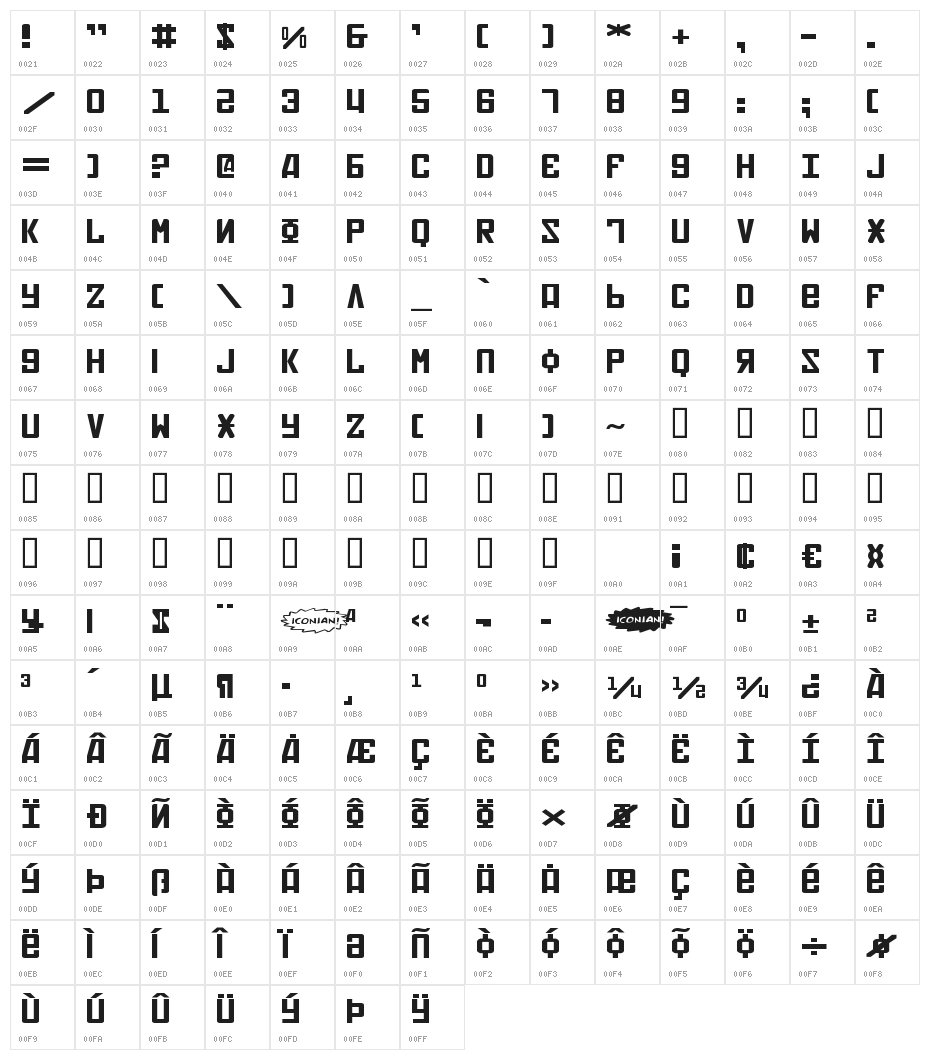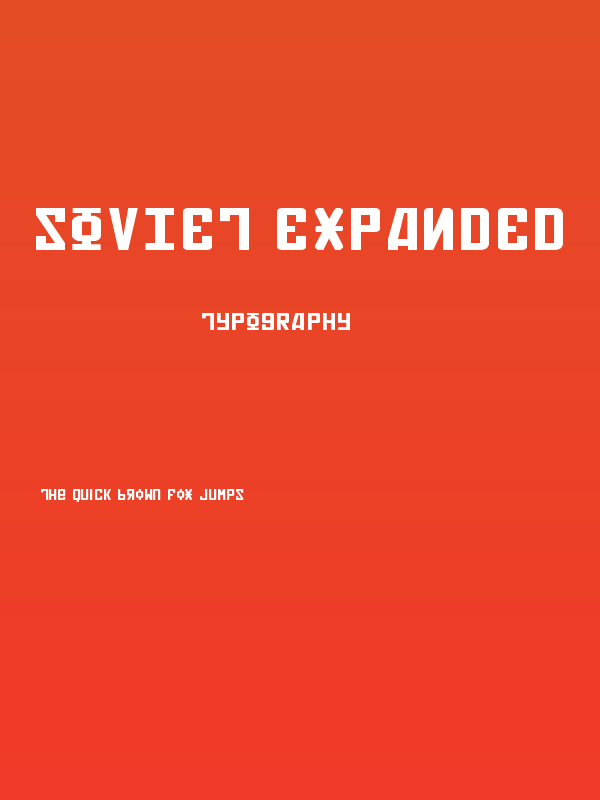
Soviet Expanded Font
Soviet Expanded Description
This font features a bold, geometric design with a distinctly industrial feel. The characters are blocky and angular, reminiscent of Soviet-era typography, with a strong emphasis on horizontal and vertical lines. The uppercase letters are particularly striking, with unique shapes that give the font a futuristic and mechanical appearance. The lowercase letters maintain the same structural integrity, ensuring consistency across the typeface. Numbers and special characters are designed with the same boldness, making them stand out effectively. The overall style is both retro and modern, suitable for projects that require a strong visual impact.
| Overall Style | Retro-Futuristic |
| Proposed Projects | Ideal for posters, branding, and any design work that requires a bold, impactful typeface with a retro-futuristic vibe. |